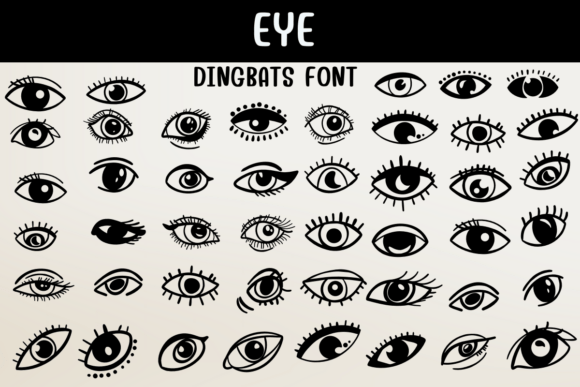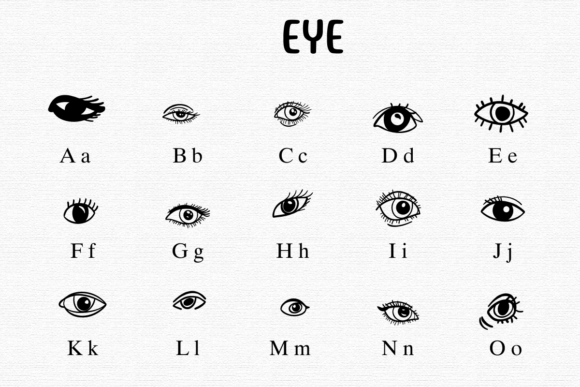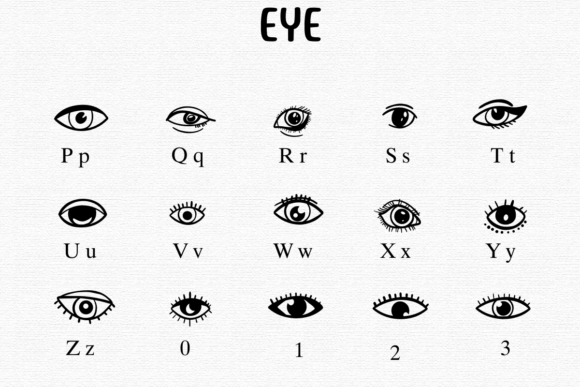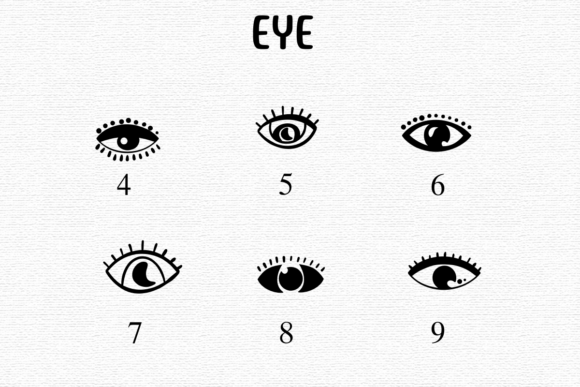
Eye Font
About the Eye Font
Step up your design game with Eye Font, a font that exudes confidence and style. Eye is a quirky and expressive dingbats font featuring dozens of unique eye illustrations—from minimalistic lashes to detailed pupils and stylized stares. Ideal for design themes like vision, mysticism, self-expression, and fashion branding.
Eye Font shines in headline treatments, short-form text on posters or social media graphics, and as an impactful design element within fashion branding or packaging. Its quirky nature makes it less suitable for body text or UI, where legibility over stylistic flourishes is paramount. Avoid using it for large blocks of text.
The font’s expressive personality pairs well with clean sans-serif fonts like Open Sans for a balanced contrast, or a geometric sans-serif like Futura for a more modern feel. For a touch of elegance, consider pairing it with a delicate serif like Garamond. Avoid pairing it with other highly decorative fonts.
Eye Font projects a bold, playful, and slightly rebellious energy. It’s best suited for brands that value individuality and creative expression, making it perfect for fashion, art, and music-related projects.